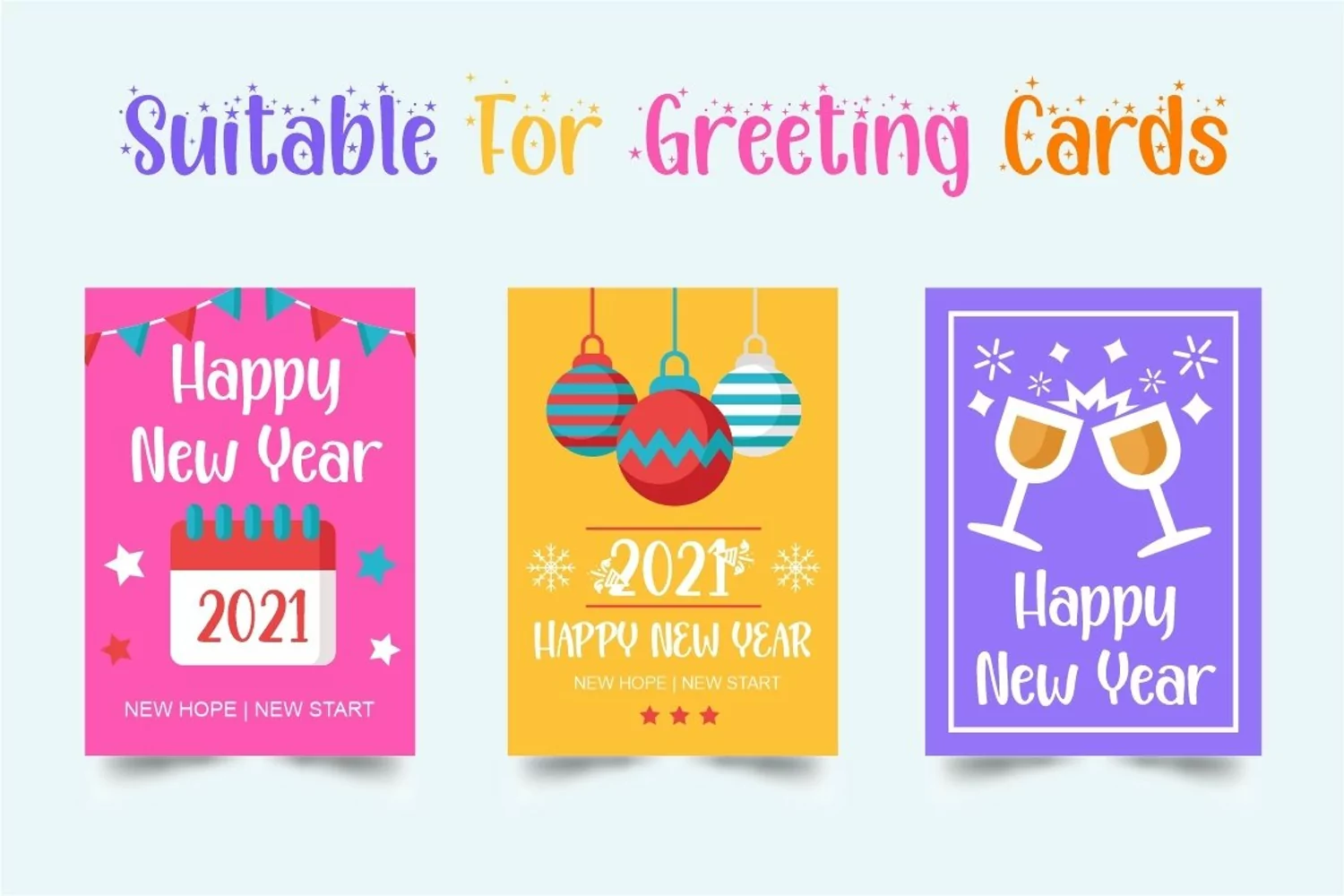
Happy New Year Party - Quirky with 8 Variation Font
Happy Ney Year Party
Happy Ney Year Party is a playful and quirky display font. I made this font especially for New Year and holidays. This font has 8 decoration versions : regular, firework, splash, ribbon, star, trumpet. These decorations are related to New Year decorations, making this font the perfect fit for any new year or holiday themed activity / project.
Happy Ney Year Party perfect for crafter, gift, tshirt, card event, anniversary, birthday,greeting cards, logotype, branding, poster, packaging, stationery, website, and any other projects requiring a handwritten and luxurious touch.
This font is also support multi language.